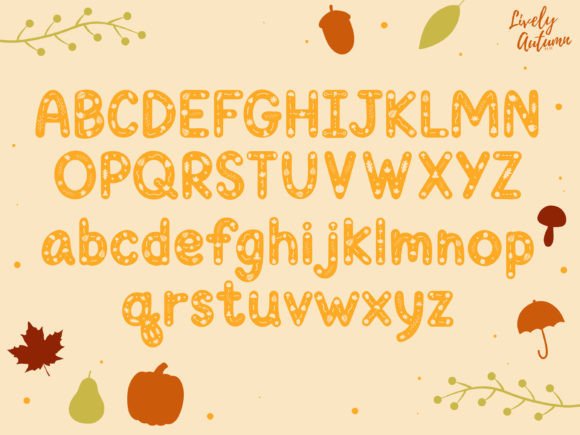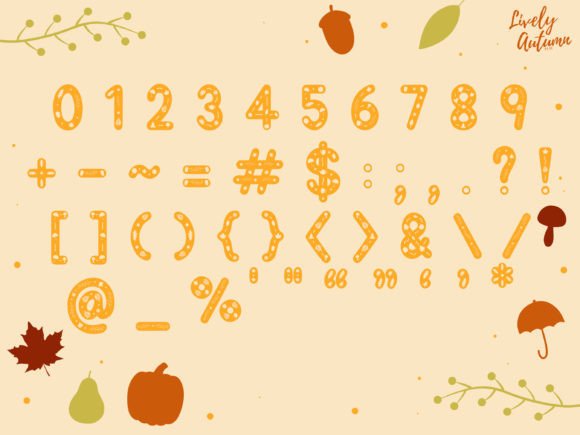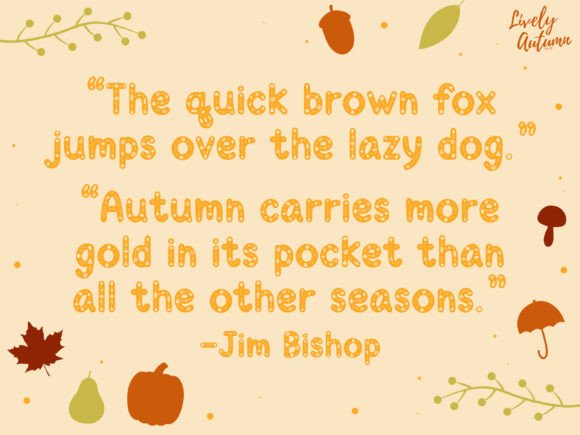
Introduction to Autumn Moments Font
Autumn Moments is a decorative Sans Serif font with charming fall-themed details in each letter.
It’s great for all kinds of autumn projects, from invitations and posters to social media graphics, journals, and more .
Autumn Moments Font offers exceptional quality and versatility, making it a valuable addition to your design toolkit. Whether you’re creating for personal projects or commercial use, Autumn Moments Font delivers professional results.